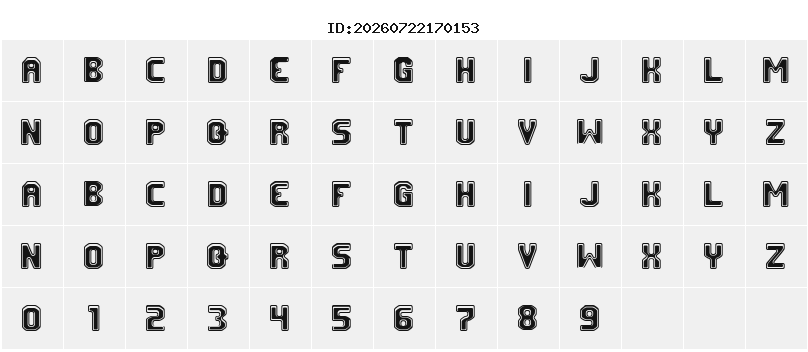
• Font Name: JI-Merlin
• Full Font Name: JI-Merlin
• Designer: JupiterImages
About JI-Merlin.ttf
JI-Merlin.ttf is a modern, elegant sans-serif font designed for ultimate readability and visual harmony. Perfect for branding, headlines, web design, and print materials.